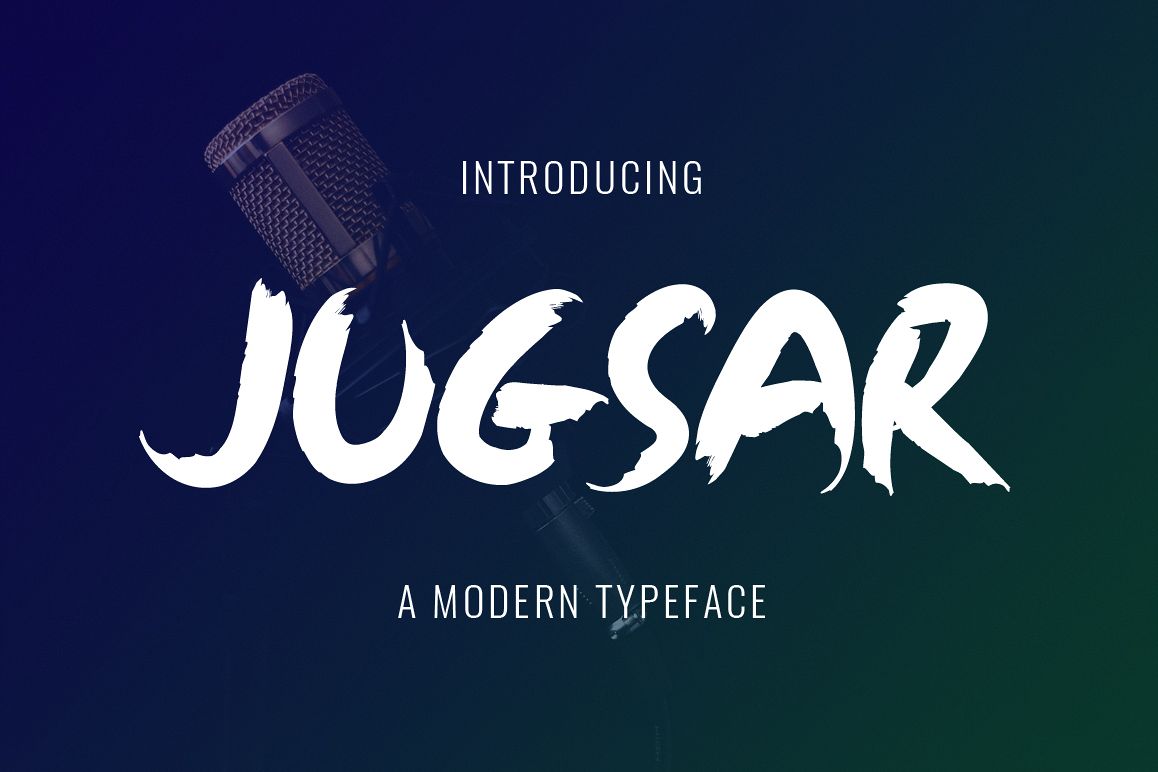
Jugsar is a new & modern handmade font. Jugsar is perfectly suited to stationery, logos, t-shirt, paper, print design, website header, photo frame, flyer, music cover, poster, image slider and much more.